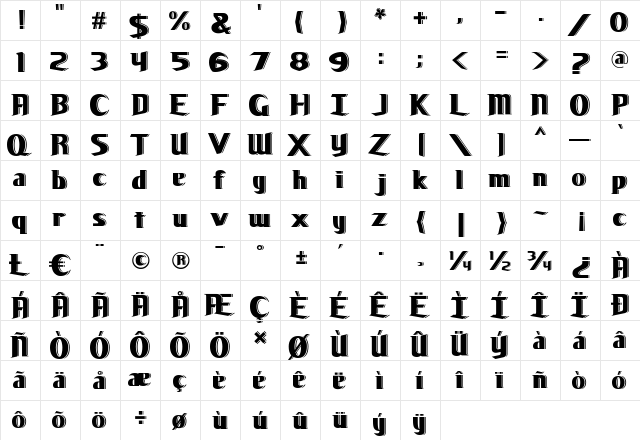
La Mesa Regular
Design Context for La Mesa Typeface
La Mesa is a composed and adaptable typeface that performs quietly and consistently across a wide range of design contexts.